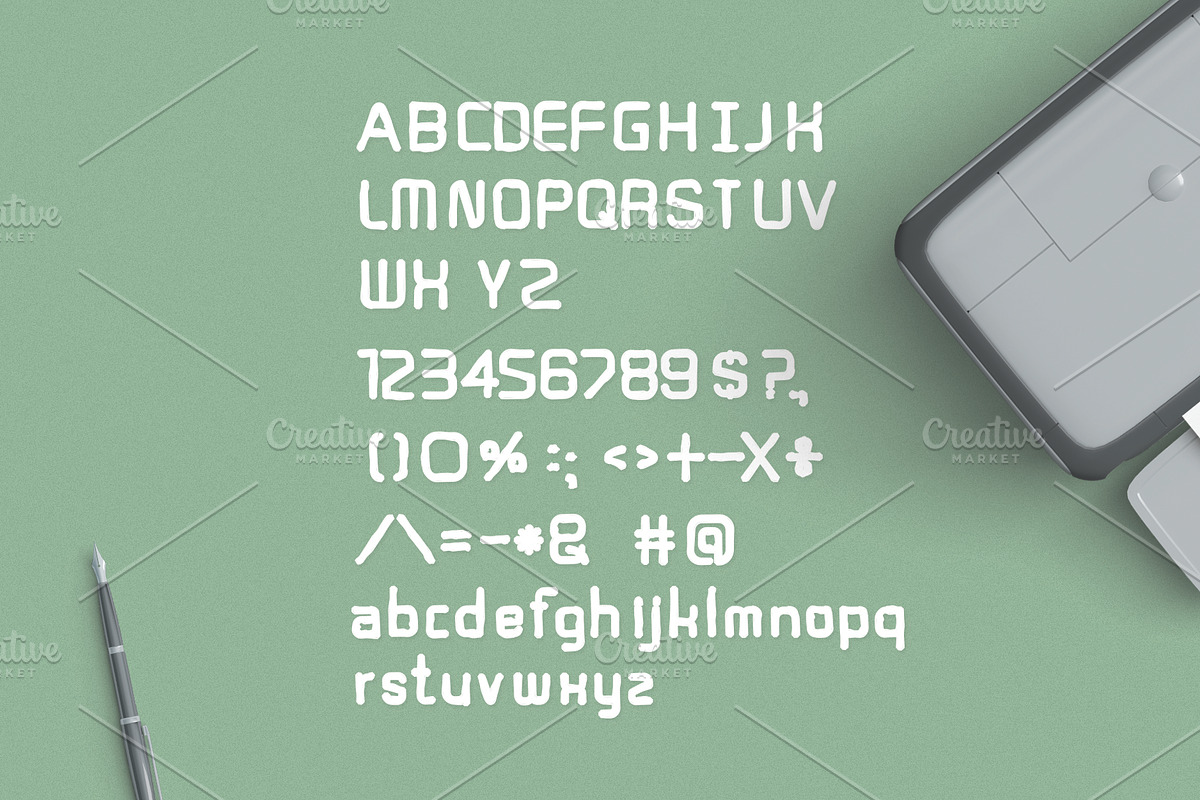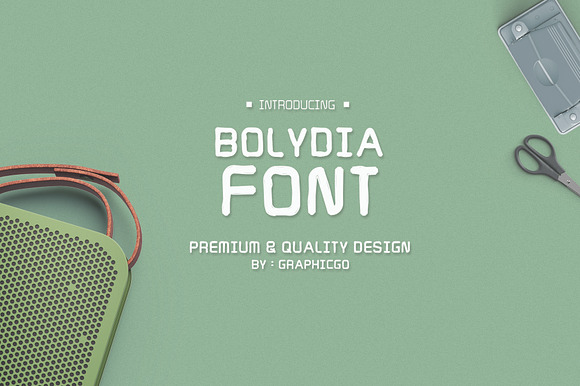
Bolydia Font
Bolydia Font is bubble fat writing style. It 's perfect for any products, cards, posters, wall art, branding, diy projects, greeting cards, labels, quotes, packaging, websites and much more.
Uppercase and Lowercase
Bolydia Font by Graphicgo fits naturally into Branding, posters, packaging, typography.